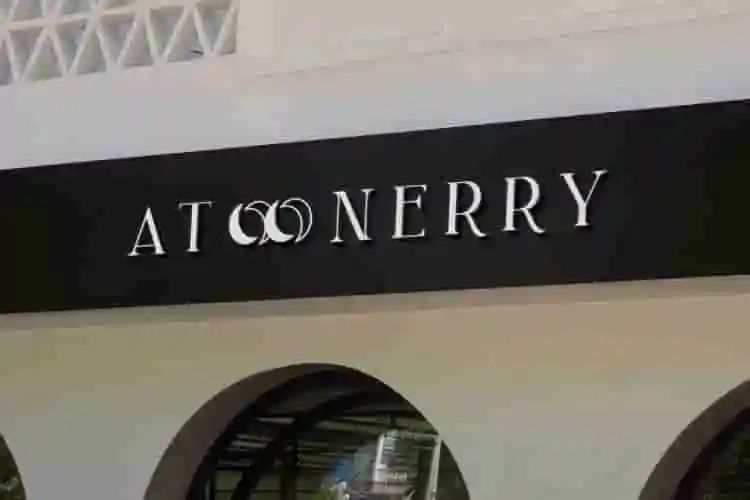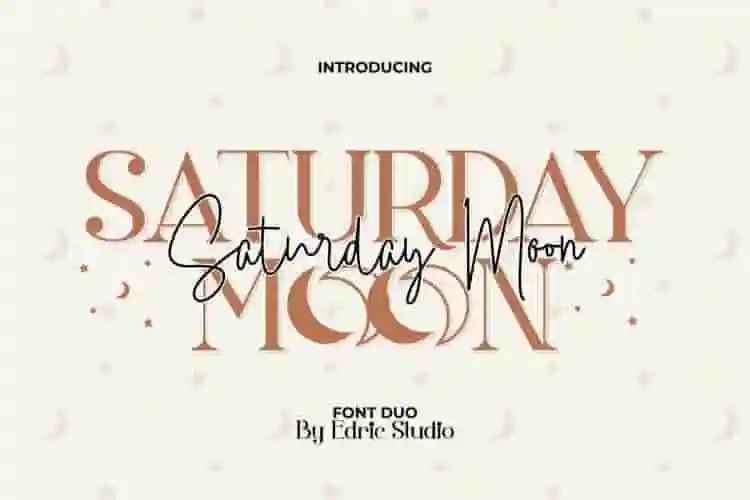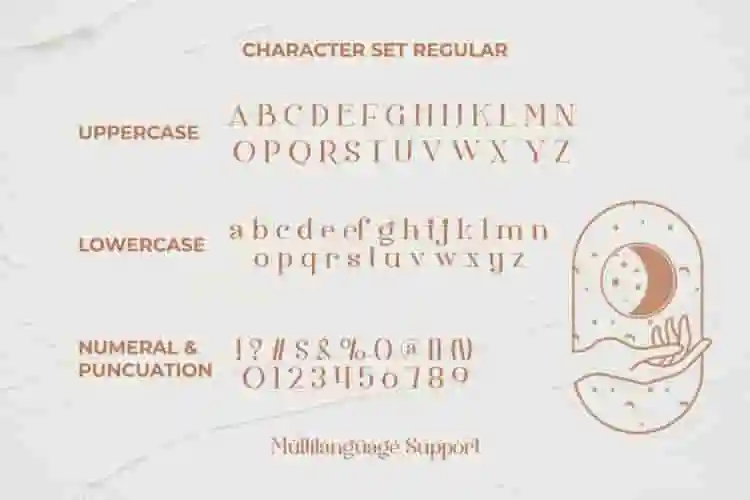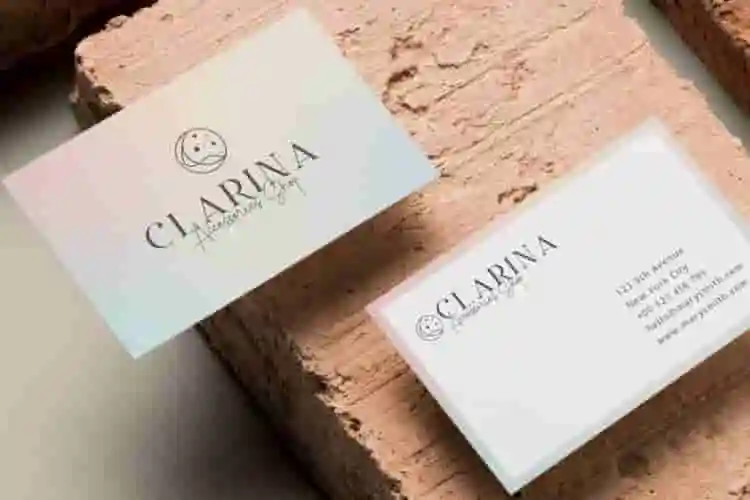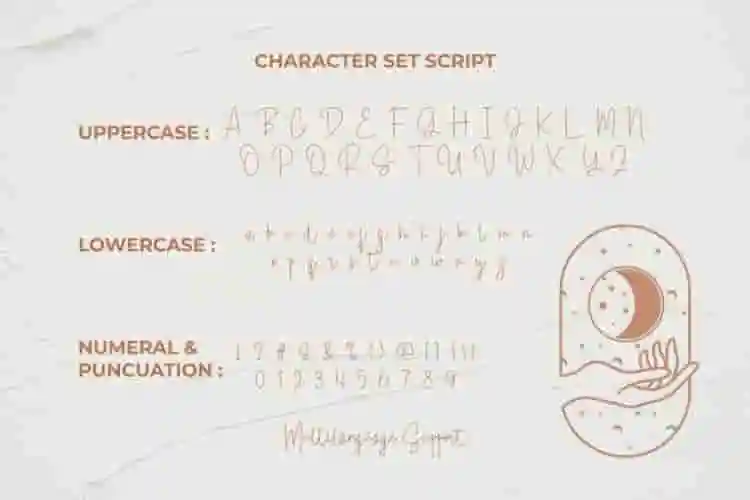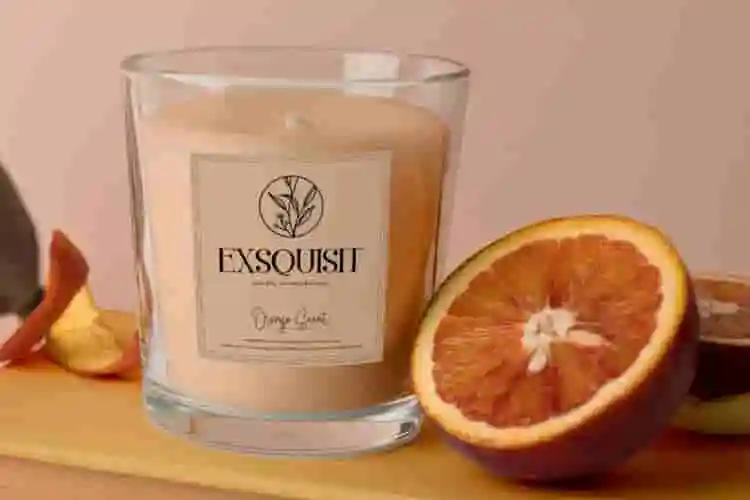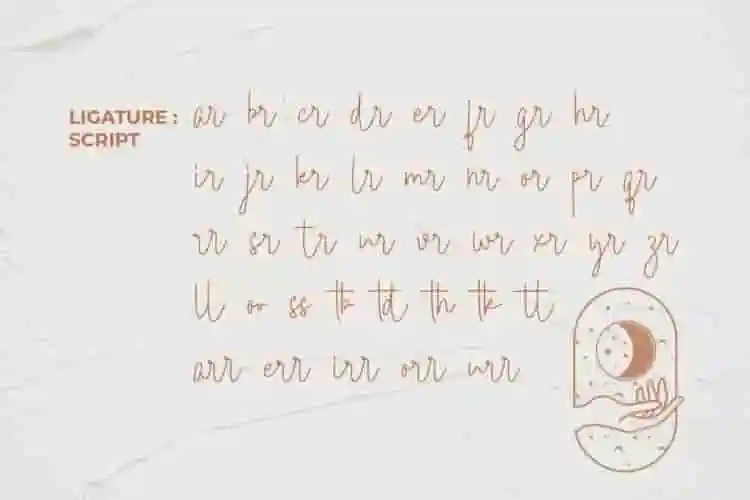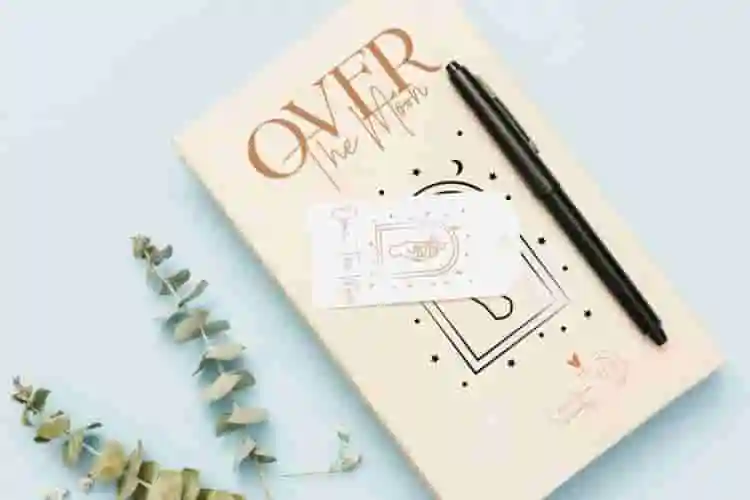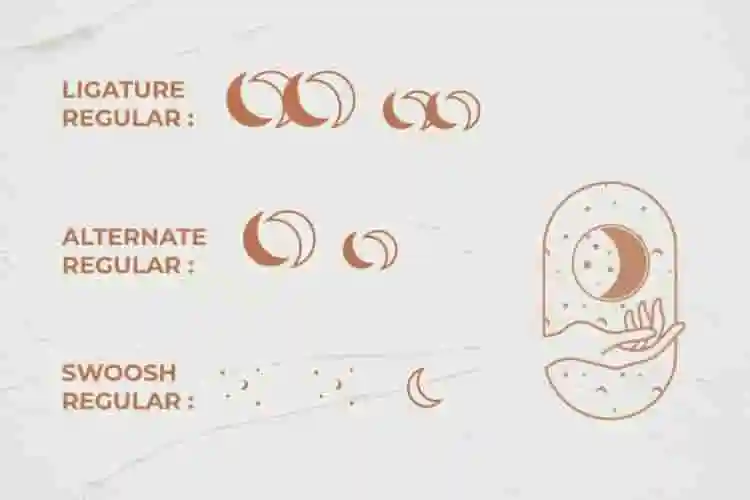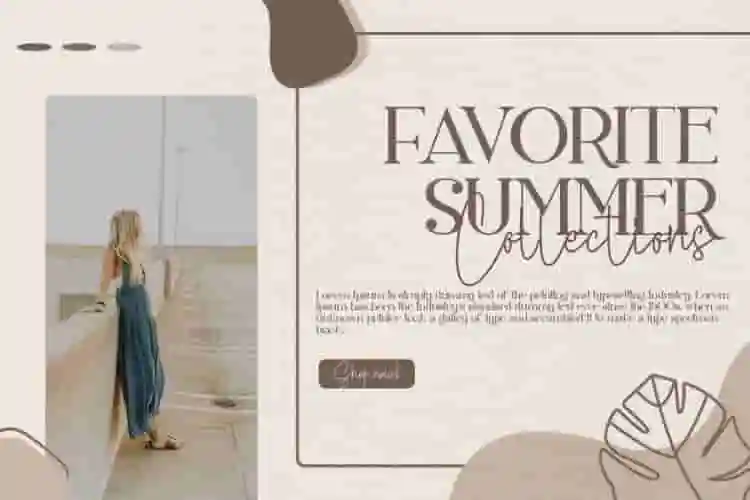
Saturday Moon Font Duo
Saturday Moon Font is a Modern Elegant Style font duo by EdricStudio. This font consists of two styles : Regular Serif Display Font. Plus special alternative characters with Lunar theme. The Script font includes ligatures to make everything look totally hand-done, and alternates for each letter. The Serif font has special rounded characters (moon/lunar) to bring differentiate to your designs!
Say hello to Saturday Moon Font Duo – a beautifully balanced combination of modern script and classic serif fonts, designed to bring effortless elegance and personality to your creative work.
Whether you’re building a brand identity, crafting a wedding invitation, or designing for social media, blogs, or packaging, Saturday Moon offers the perfect blend of feminine flair and timeless style.
There’s something magical about the weekend — and Saturday Moon Font Duo captures that feeling in every letter. This elegant pairing of script and serif fonts brings softness, style, and modern charm to your most meaningful projects.
• Uppercase and lowercase letters
• Numbers and Symbols
• Ligatures
• Alternates
• Multilingual support
• Modern Script Font